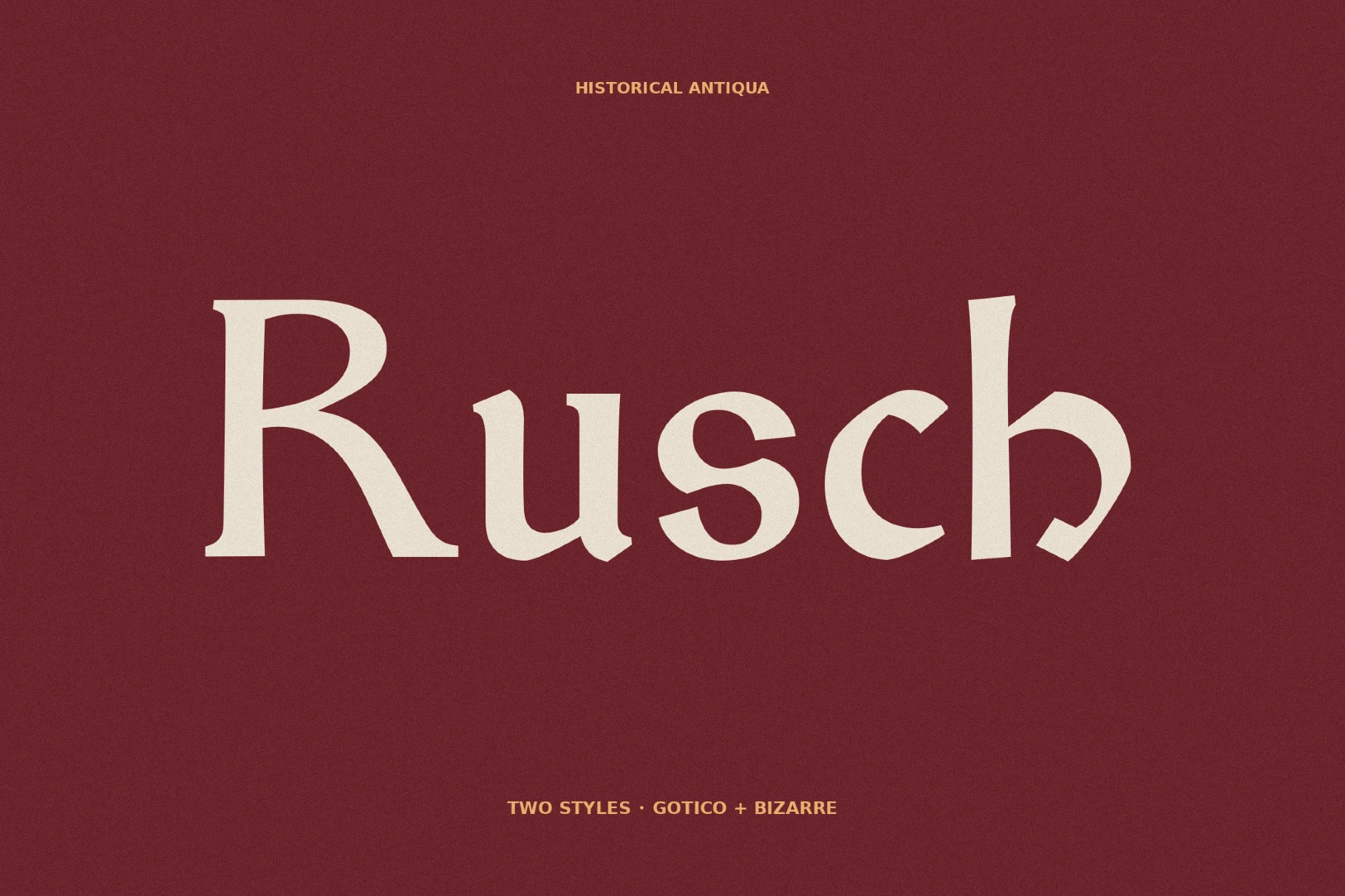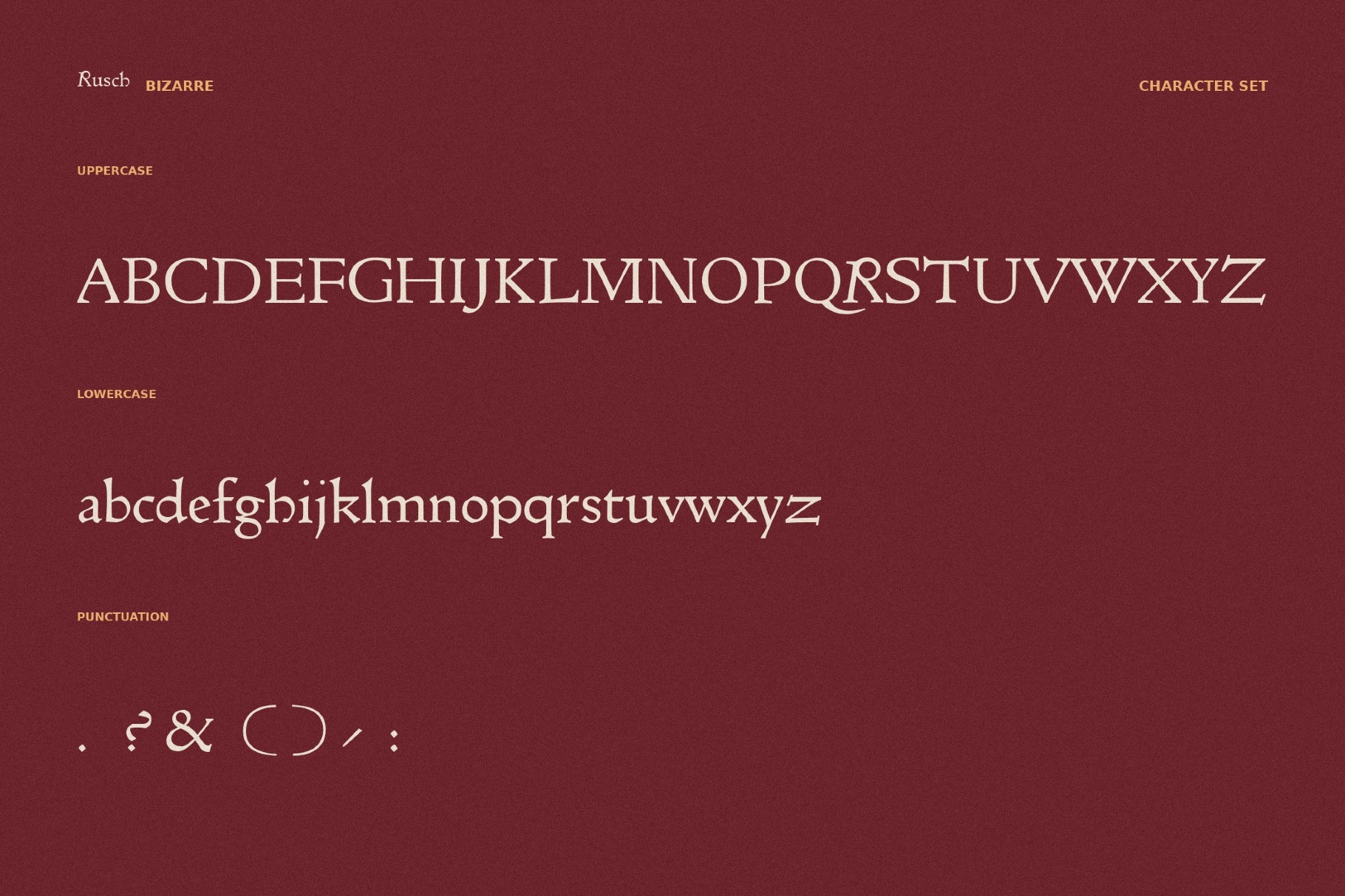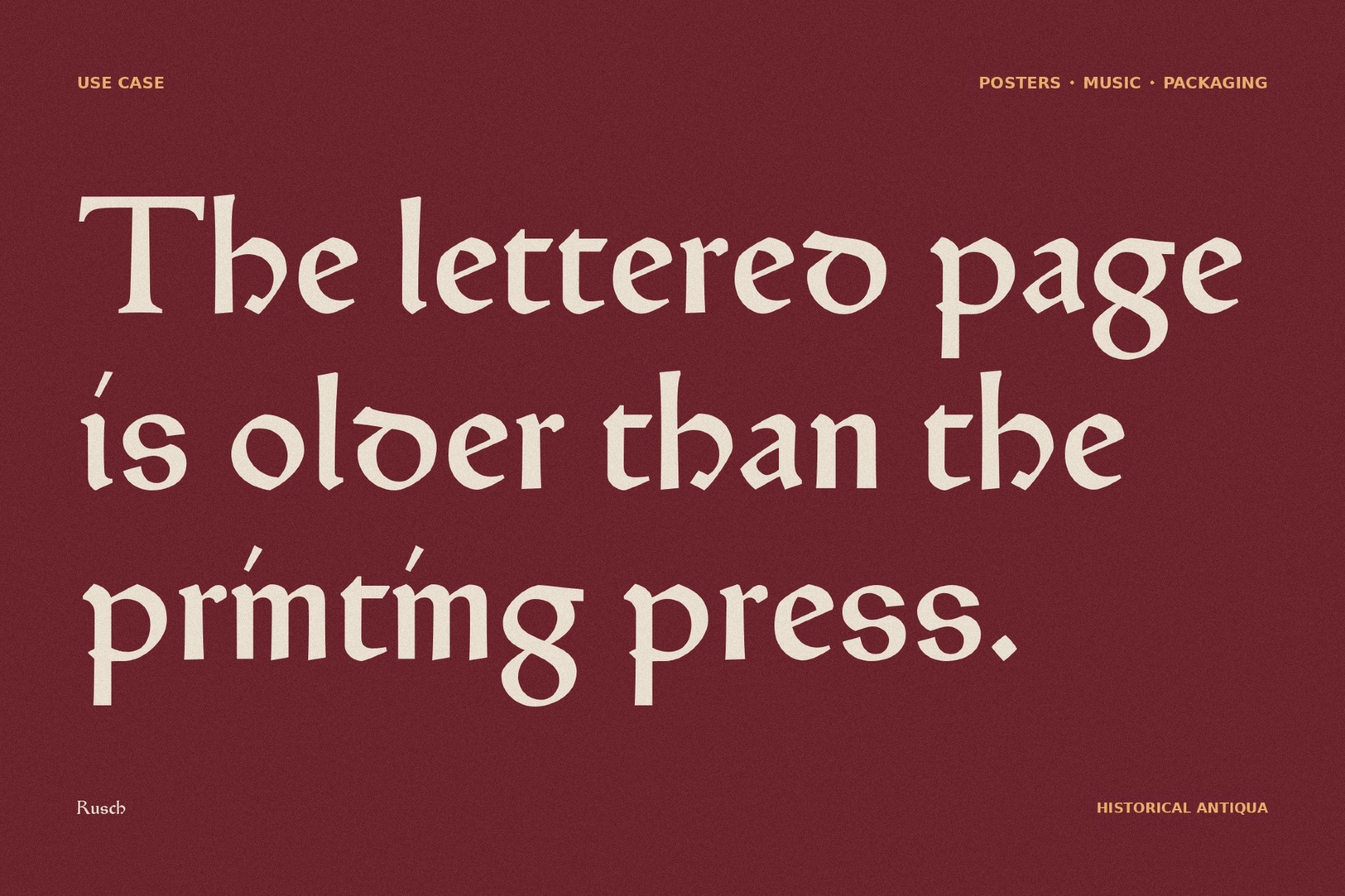
Rusch - Gothic Fantasy Typeface
The carved serif discipline of Rusch recalls Roman inscriptions, uncial manuscripts, and Renaissance type specimens. The classical proportions enriched with archaic alternates, calligraphic rhythm, and uncial-inspired details work well for book covers, exhibition titles, academic posters, museum graphics, heritage branding, wine labels, editorial layouts, cultural programs, and packaging.
- 2 styles: Gotico Antiqua and R Bizarre Proto Roman;
- uppercase and lowercase letters;
- punctuation;
- multilingual support across the basic Latin script;
- ligatures.